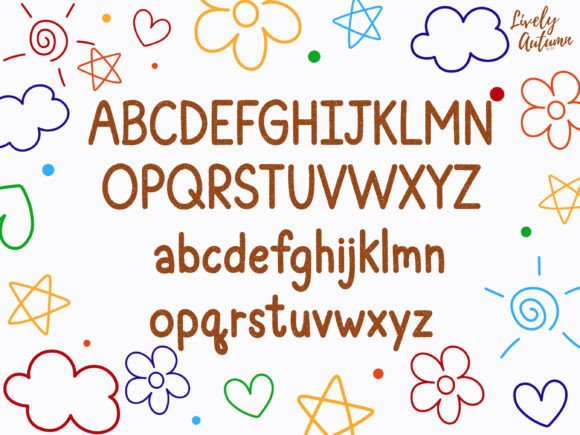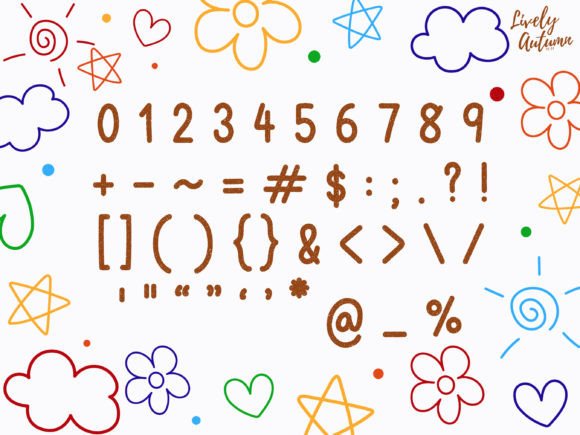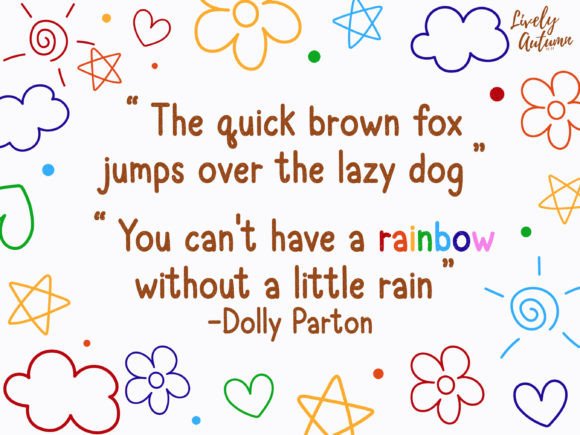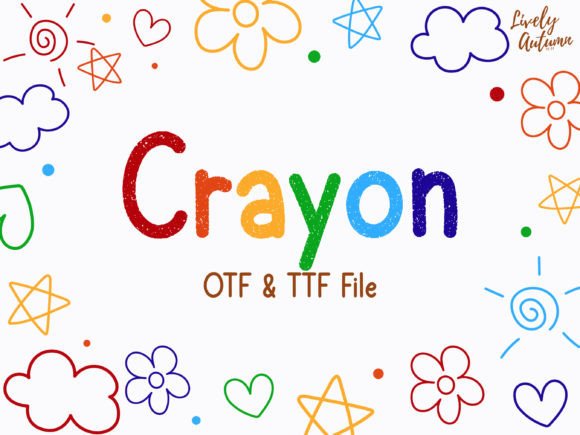
Crayon Font: A Simple and Neat Handwritten Font for Your Crafty Ideas
Are you a designer or crafter looking for a font that can add a touch of personality to your projects? Look no further than Crayon Font, a simple and neat handwritten font that’s perfect for a variety of creative endeavors. In this article, we’ll take a closer look at Crayon Font, its features, and how you can use it to take your crafty ideas to the next level.
What is Crayon Font?
Crayon Font is a type of handwritten font that’s designed to resemble the look of crayon writing. It’s a simple and neat font that’s perfect for adding a personal touch to your projects. The font is characterized by its smooth, flowing lines and rounded edges, giving it a friendly and approachable feel.
Features of Crayon Font
Crayon Font has several features that make it an excellent choice for designers and crafters. Some of its key features include:
• Simple and neat design: Crayon Font has a clean and straightforward design that’s easy to read and looks great in a variety of contexts.
• Handwritten feel: The font has a personal, handwritten feel that’s perfect for adding a touch of personality to your projects.
• Versatile: Crayon Font can be used for a wide range of projects, from digital designs to print materials.
• Easy to read: The font is highly legible, making it perfect for use in body text or headings.
How to Use Crayon Font in Your Crafty Ideas
Crayon Font is a versatile font that can be used in a variety of crafty projects. Here are some ideas to get you started:
• DIY crafts: Use Crayon Font to add a personal touch to your DIY crafts, such as scrapbooking, card making, or journaling.
• Digital designs: Add Crayon Font to your digital designs, such as social media graphics, blog posts, or website headers.
• Print materials: Use Crayon Font in your print materials, such as brochures, flyers, or posters.
• Handmade products: Add Crayon Font to your handmade products, such as t-shirts, mugs, or tote bags.
Tips for Using Crayon Font Effectively
Here are some tips for using Crayon Font effectively in your projects:
• Use it sparingly: Crayon Font is a bold font, so use it sparingly to add emphasis to your text.
• Pair it with other fonts: Pair Crayon Font with other fonts to create a unique and interesting contrast.
• Experiment with colors: Crayon Font looks great in a variety of colors, so experiment with different colors to find the one that works best for your project.
Crayon Font is a simple and neat handwritten font that’s perfect for adding a touch of personality to your crafty ideas. With its smooth, flowing lines and rounded edges, it’s a font that’s sure to delight designers and crafters alike. Whether you’re working on a digital design, print material, or handmade product, Crayon Font is a great choice. So why not give it a try and see the amazing results for yourself?